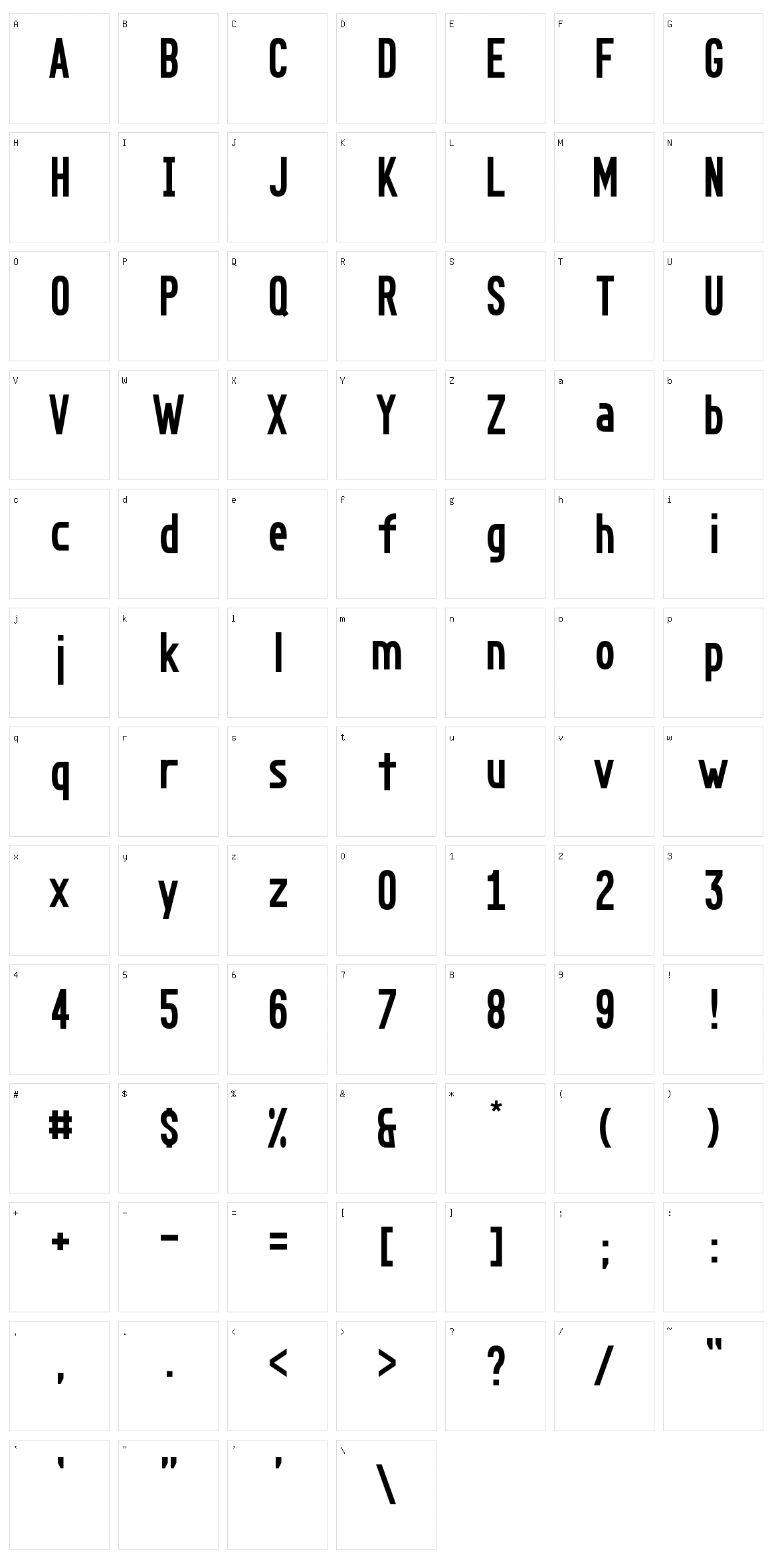
Font: Go Long
Created By: Matthew Welch
About the font:
This is a tall thin font useful for all occasions. Recommended for
signs, advertisements, and schoolwork. Bring it with you to a party